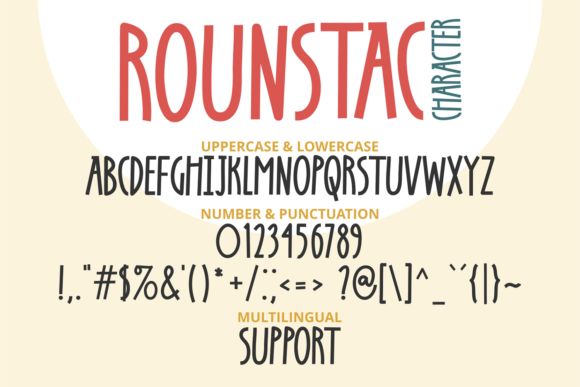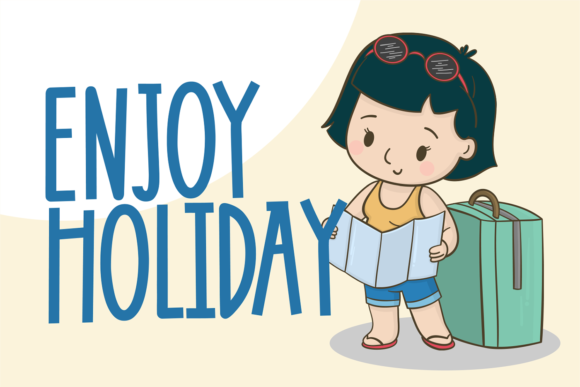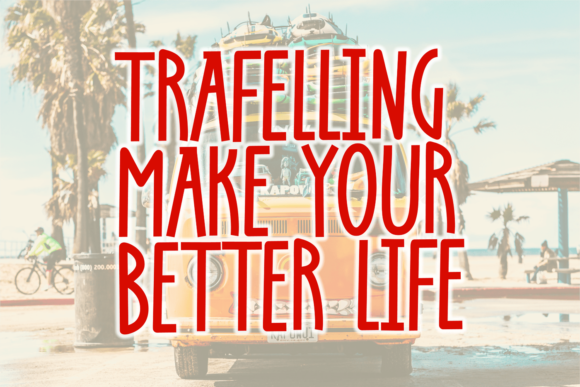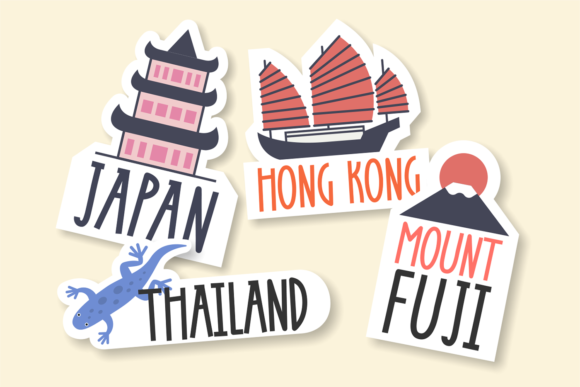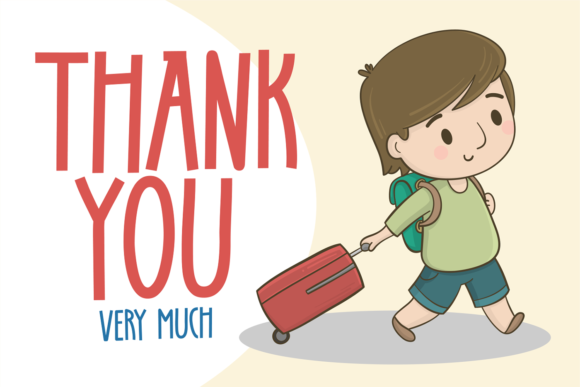
Rounstac Font
About Rounstac Font
Rounstac is a casual and cute handwritten font with a unique friendly feel. Whether you’re looking for fonts for Instagram or calligraphy scripts for DIY projects, this font will turn any creative idea into a true piece of art!